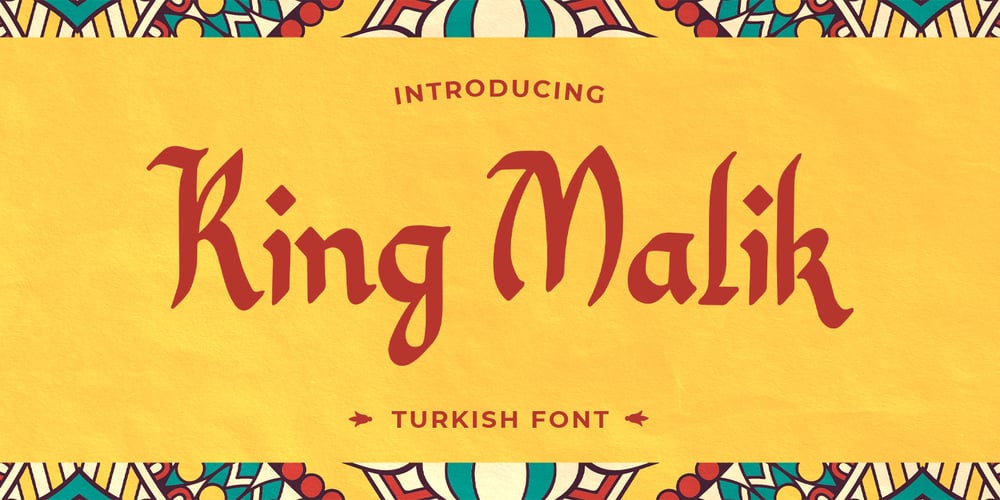
King Malik Font Family was designed by Hilmius Akbar and published by Typefactory. King Malik contains 1 styles and family package options. King Malik is an interesting display font inspired by the style and feel of the Turkish font.This font is suitable for branding logos, Turkish themes, and any other projects you can think of.